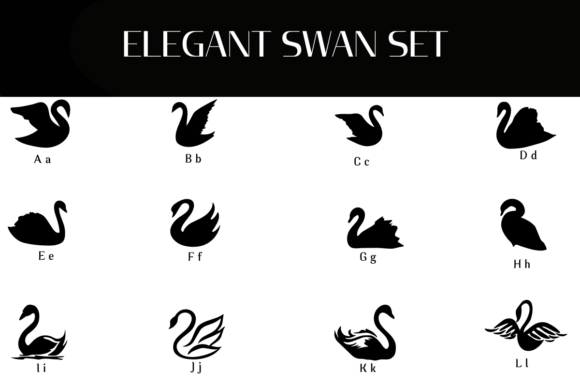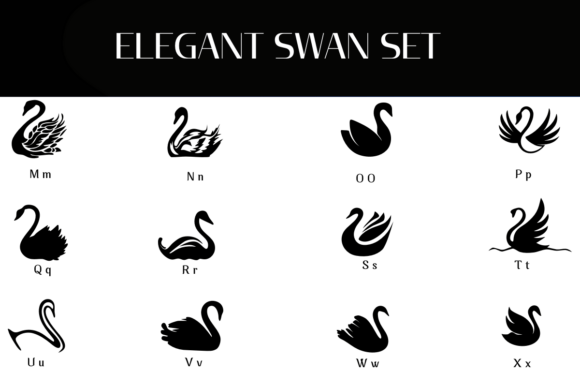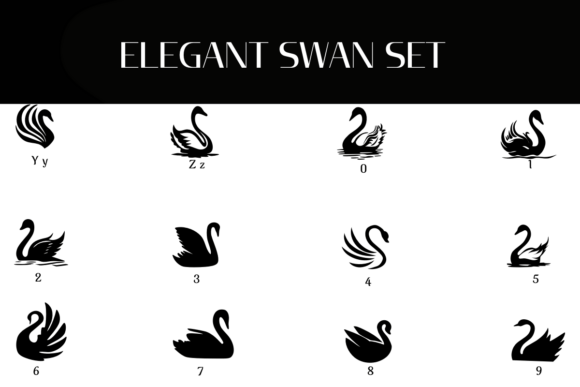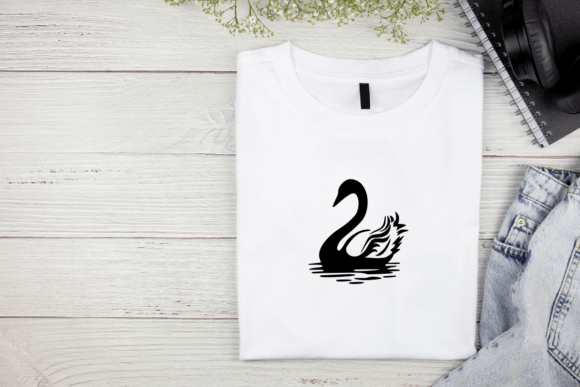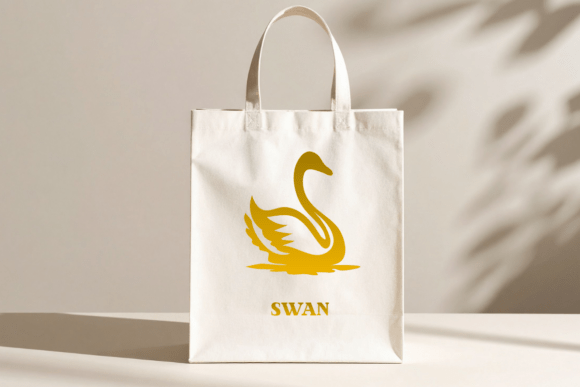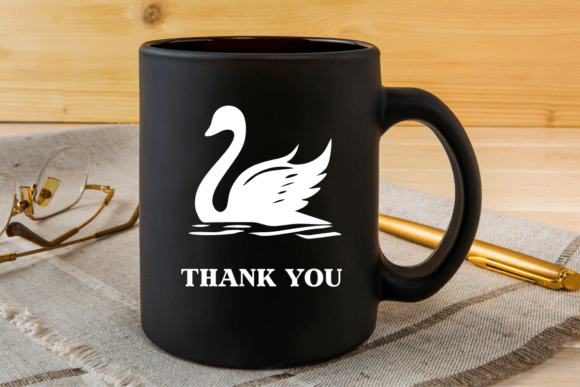
Introduction to Elegant Swan Set Font Font
Fonts play a crucial role in design, and the Elegant Swan Set Font font is a typeface that brings both character and versatility to any project. Whether you’re working on a branding project, a website, or a print design, the Elegant Swan Set Font font offers a unique style that can elevate your work.
Elegant Swan Set is a graceful and artistic dingbats font that provides a diverse collection of swan silhouettes.
It features various stylized poses, including swimming swans, pairs with intertwined necks, and swans with spread wings The illustrations range from solid, minimalist shapes to detailed line art with delicate feather patterns.
Key Features of Elegant Swan Set Font Font
Why Choose Elegant Swan Set Font Font?
The Elegant Swan Set Font font is more than just a typeface – it’s a design tool that helps you communicate your message with style and clarity. Its unique character set and versatile design make it suitable for a wide range of applications, from elegant invitations to bold headlines.
With its carefully crafted letterforms and balanced proportions, the Elegant Swan Set Font font ensures readability and visual appeal across all mediums.
What makes Elegant Swan Set Font font special?
The Elegant Swan Set Font font stands out with its unique design, exceptional readability, and versatility across various design applications.